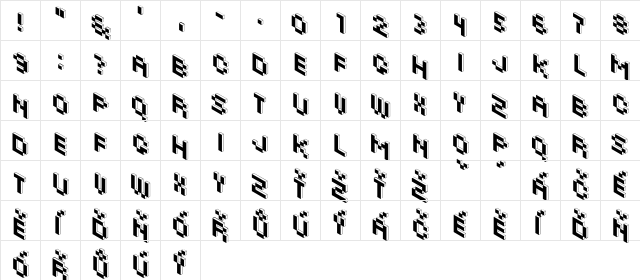
Khalijaka Outline Font Preview
Khalijaka Outline Outline
Khalijaka Outline Font Details
| Style | Outline |
| Designer | Jan Nov |
Design Context for Khalijaka Outline Typeface
Khalijaka Outline brings ornamental detail and strong personality to headlines and identities, where visual impact matters more than quiet functionality.
Font Pairing: Pair with a clean neutral sans-serif for body copy to let Khalijaka Outline's character lead without overwhelming the composition.
Pro Tip: Treat Khalijaka Outline as the centrepiece of your typographic hierarchy. One strong heading set in a decorative face can carry an entire layout.